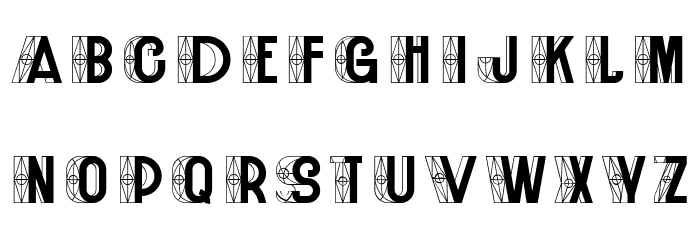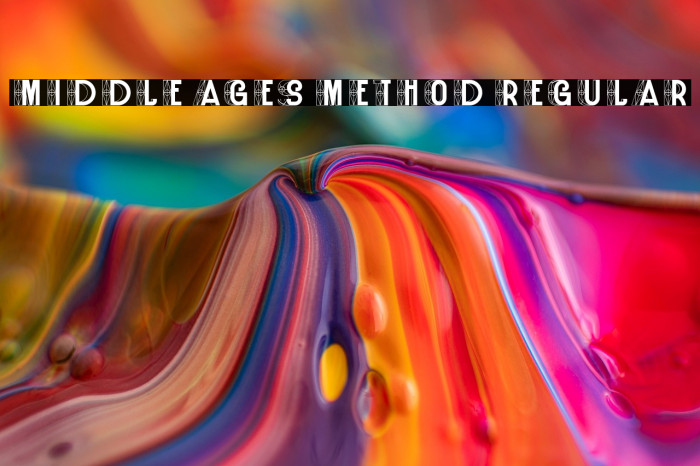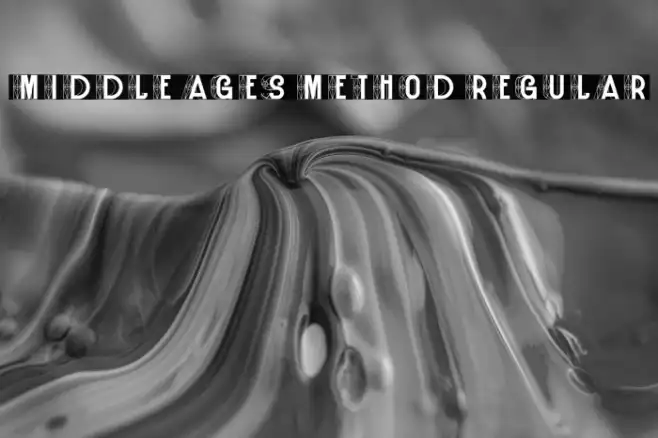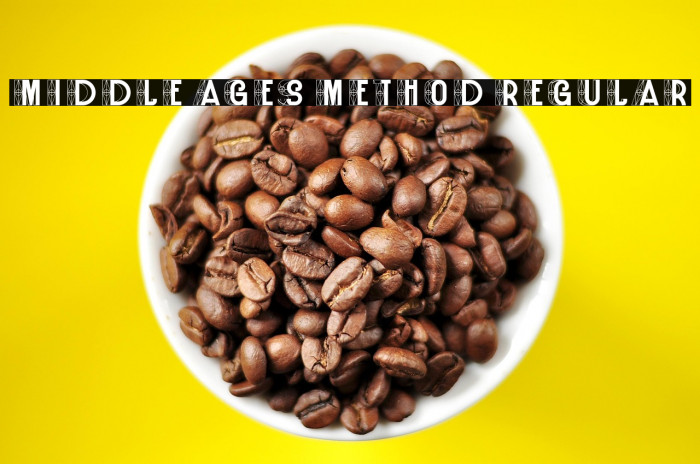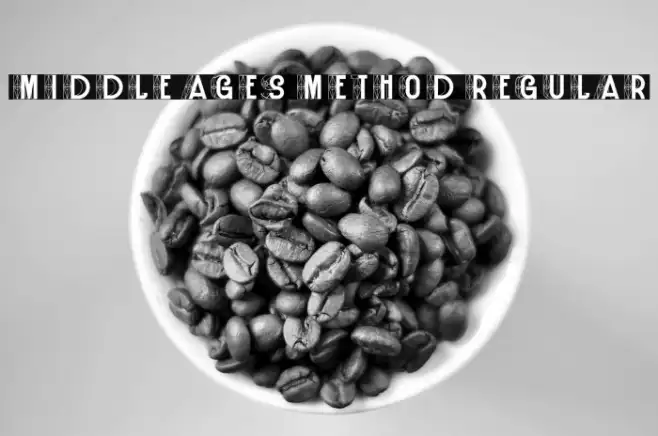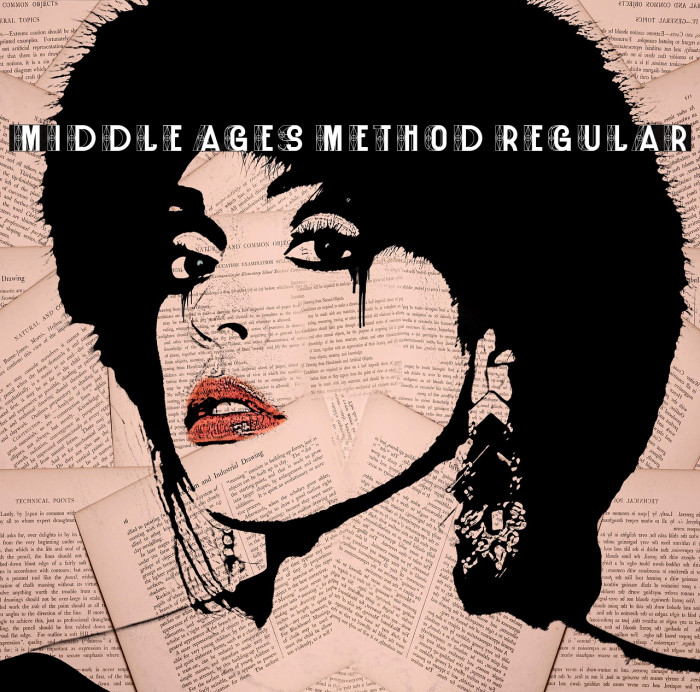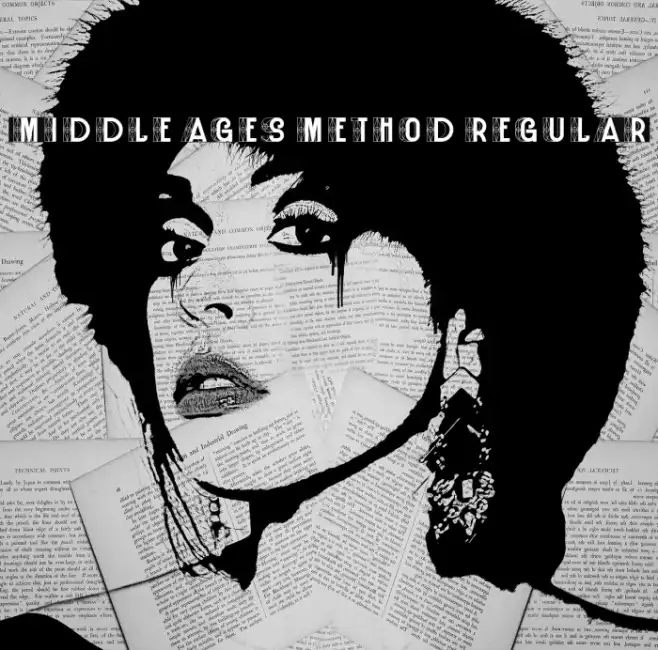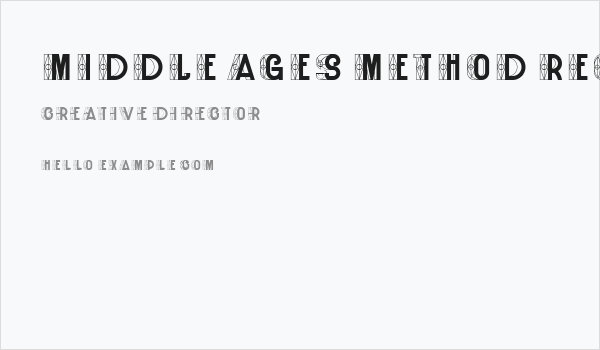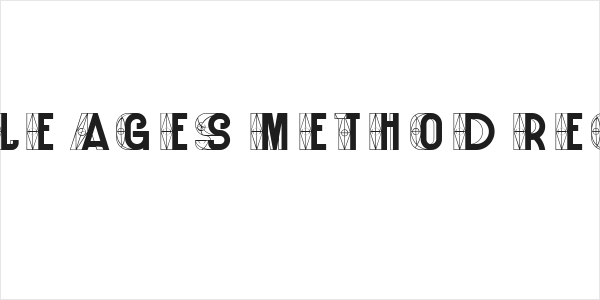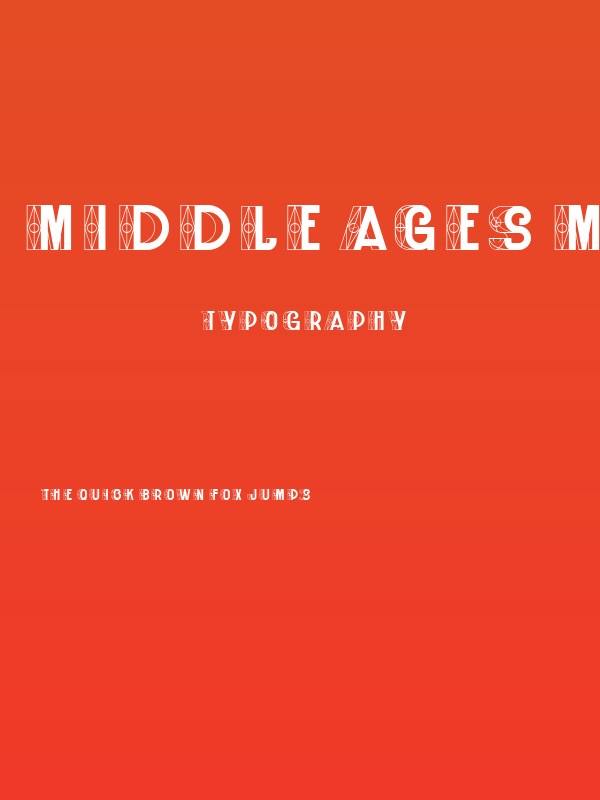
Middle Ages Method Regular Font
Middle Ages Method Regular Description
This font features a unique blend of geometric patterns and bold, solid strokes, creating a striking visual impact. Each letter is adorned with intricate line work, reminiscent of stained glass or medieval architectural designs, giving it a distinct, historical feel. The uppercase letters are uniform in height, with consistent stroke widths that emphasize their boldness. The geometric patterns within each character add a decorative element, making the font ideal for projects that require a touch of elegance and complexity. The overall design is both modern and vintage, capturing the essence of the Middle Ages with a contemporary twist.
| Proposed Projects | Ideal for historical-themed posters, book covers, branding for luxury products, or any design requiring a touch of medieval elegance. |